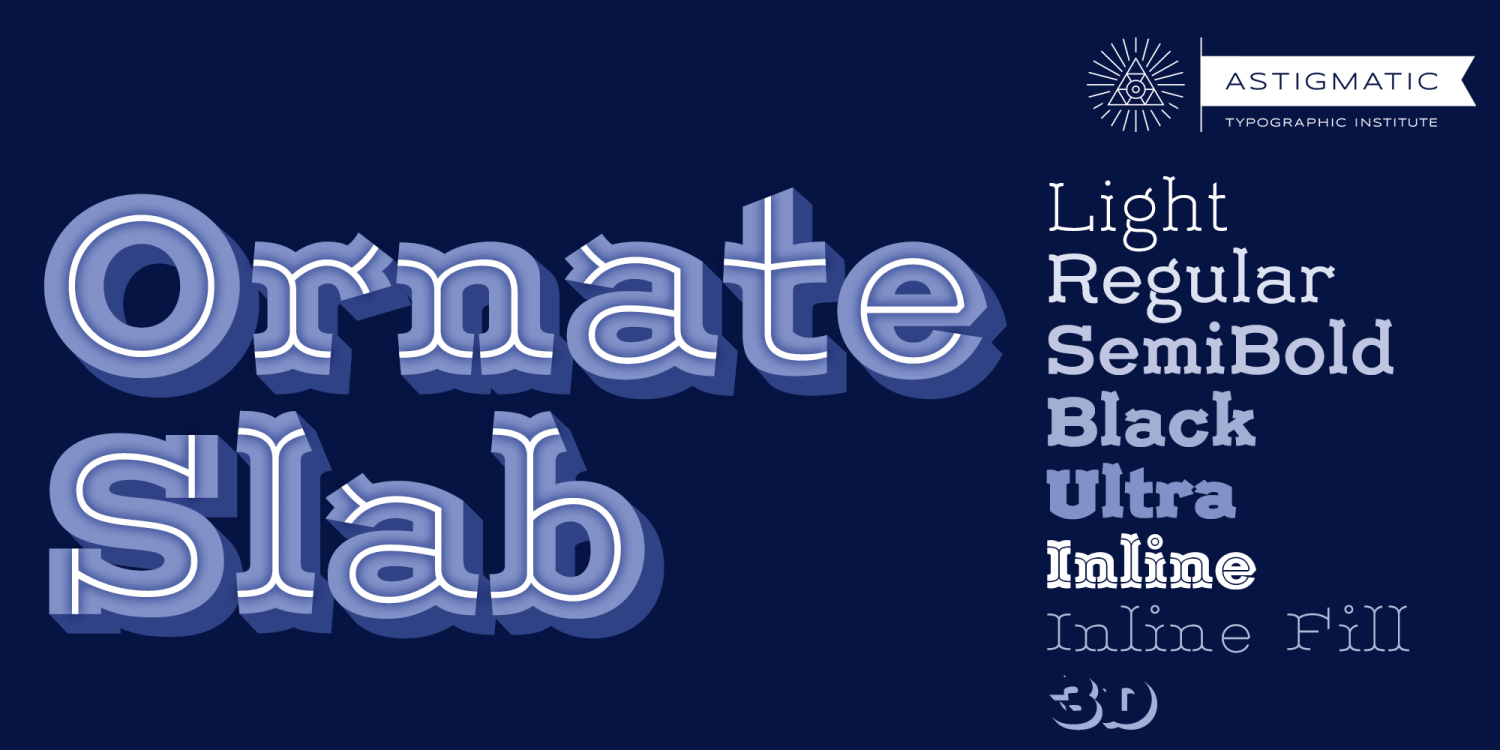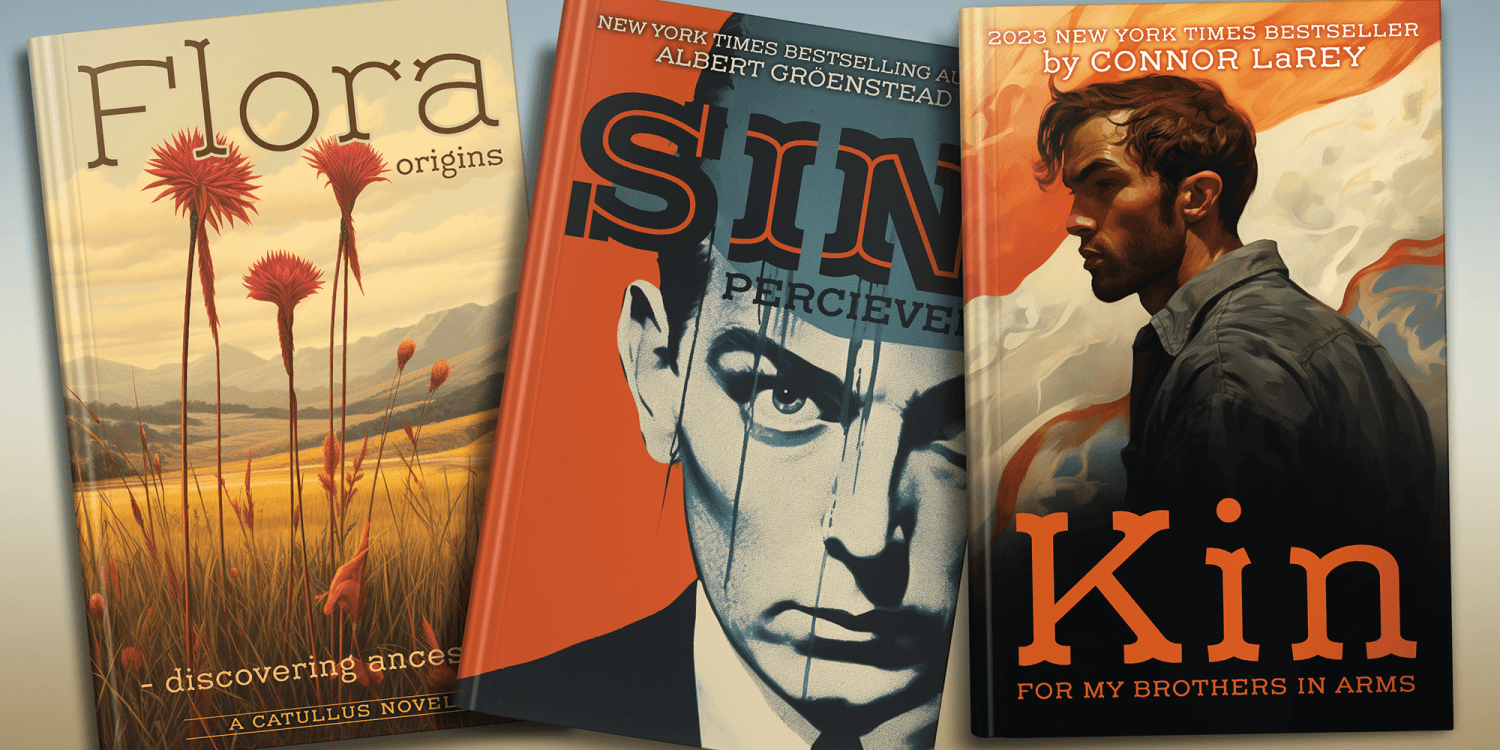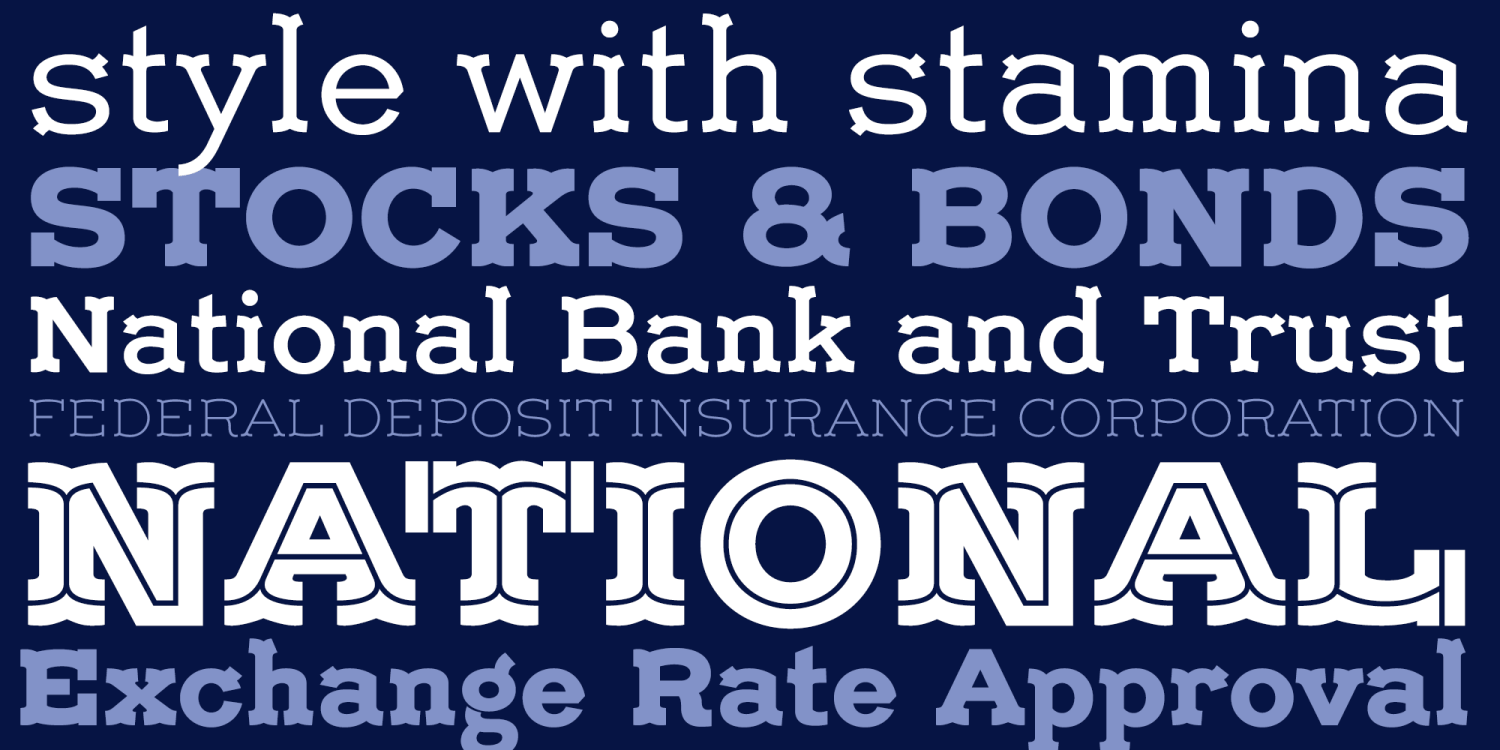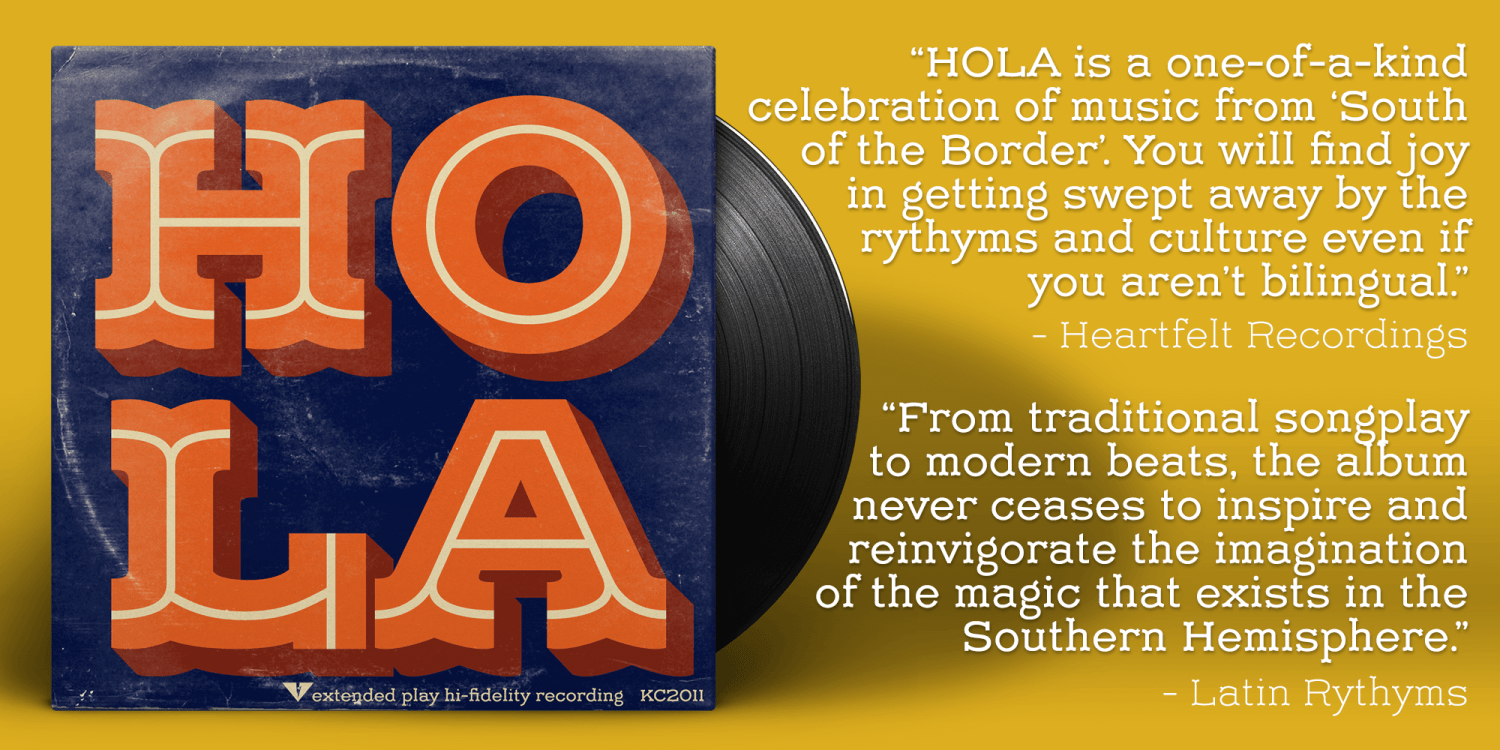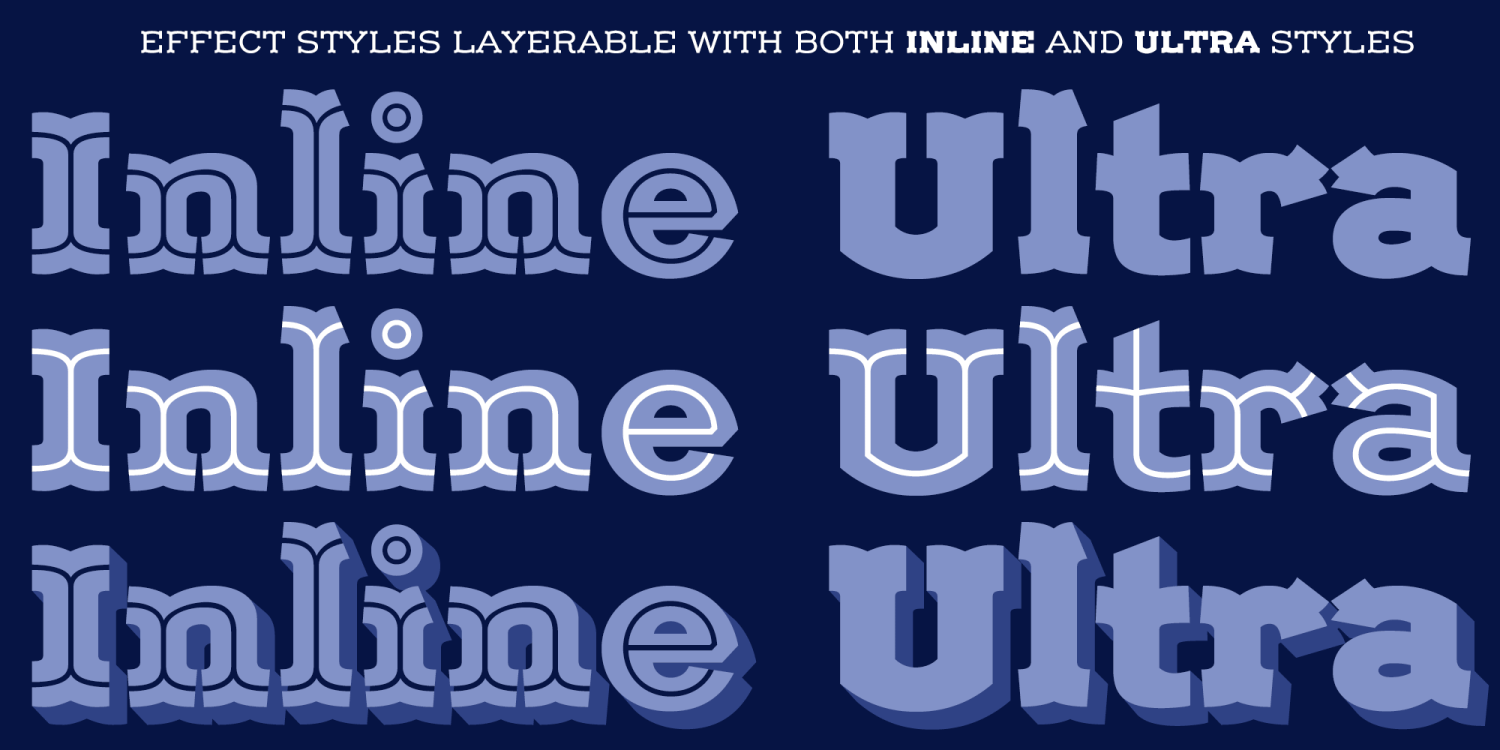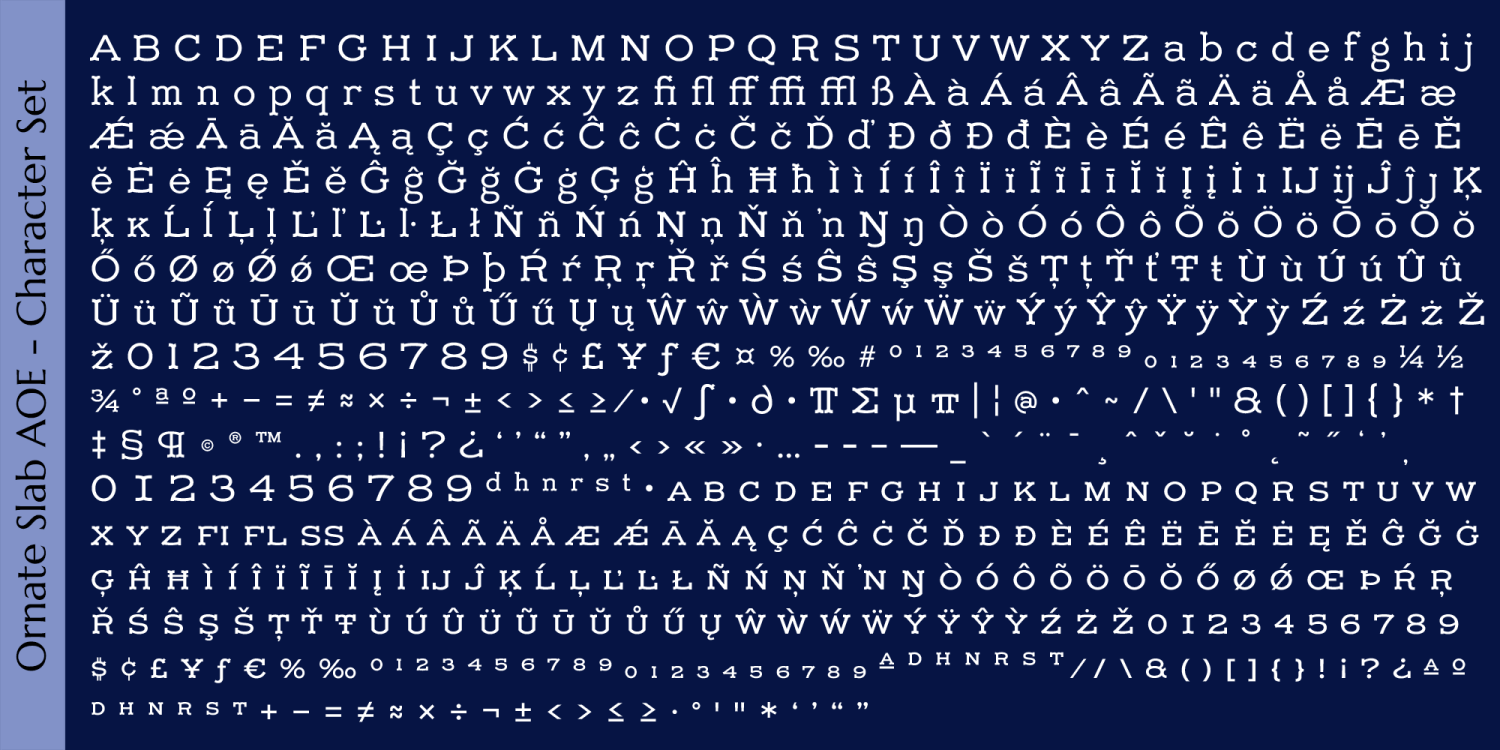
Ornate Slab
Font Family by Astigmatic One Eye
The Ornate Slab Family originated in an old penmanship book as a single style/weight and has been digitally revived with a range of weights and effect styles to give your design loads of play. Great for nautical, cultural, or historical appeal design and beyond. Complete with ordinals, true smallcaps, tabular numerals, smallcap numerals, unlimited fractions, and lots of panache. Layerable effects like 3D and Inline Fill work on both Inline and Ultra styles.